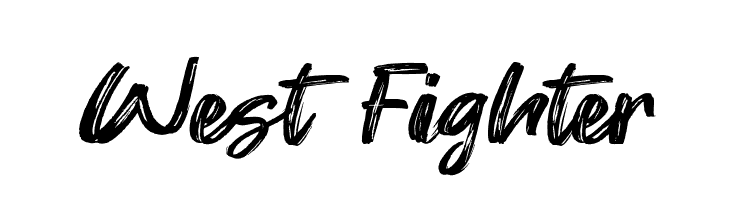
A bold, dynamic handwritten font with thick strokes and playful character.
A bold, dynamic brush script with expressive, hand-painted strokes.
A bold, dynamic brush script font with expressive strokes and a hand-painted look.